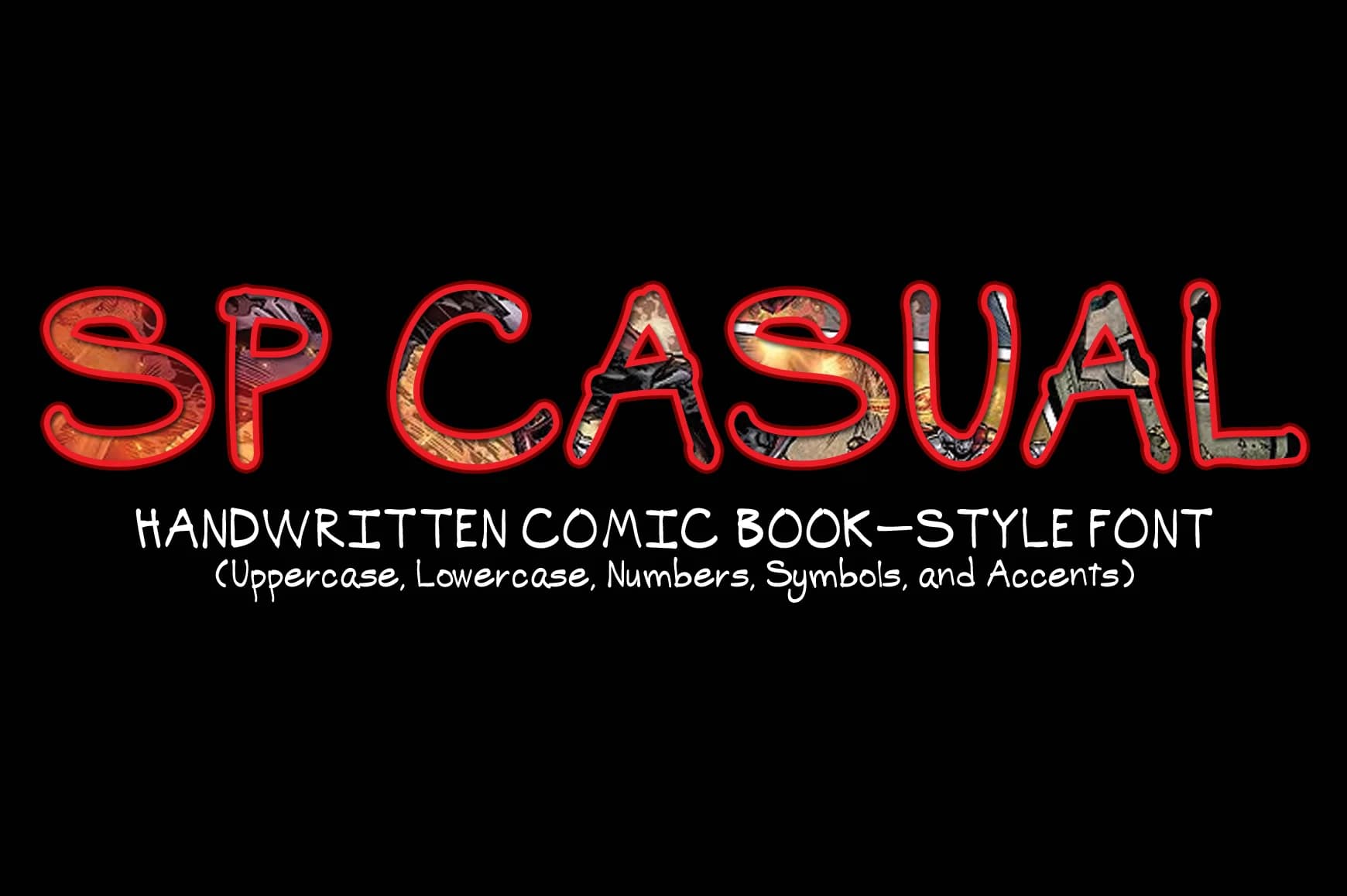
About SP Casual Font
SP Casual Font by sizzleprint is a relaxed handwritten script that brings genuine warmth to designs without sacrificing readability or visual impact. The typeface captures the organic flow of natural handwriting, making it ideal for projects seeking a personal connection with their audience while maintaining clarity across all formats and sizes.
This versatile font excels in specific applications including wedding invitation suites, boutique skincare packaging, DIY craft signs, and hand-poured candle labels where an approachable, personable aesthetic creates genuine appeal with target audiences. The laid-back character conveys warmth and authenticity for small business branding and social media content, while the clean letterforms and consistent stroke weight ensure reliable performance across digital and print mediums. Whether you're creating event stationery, packaging for an online shop, or merchandise for a local craft market, SP Casual delivers a distinctive voice without sacrificing professionalism or clarity.
SP Casual Font balances casual charm with professional credibility, making it a solid choice for anyone building a distinctive brand or creating designs that reflect authentic personality and values. The versatile design supports various applications from print materials to digital platforms, providing designers with the flexibility and confidence needed for contemporary creative work.
SP Casual Font is a script font that shines as a display or heading face. Pair it with a clean sans-serif or serif font for body text β the contrast creates a clear hierarchy while the two styles stay balanced and easy to read.
SP Casual Font